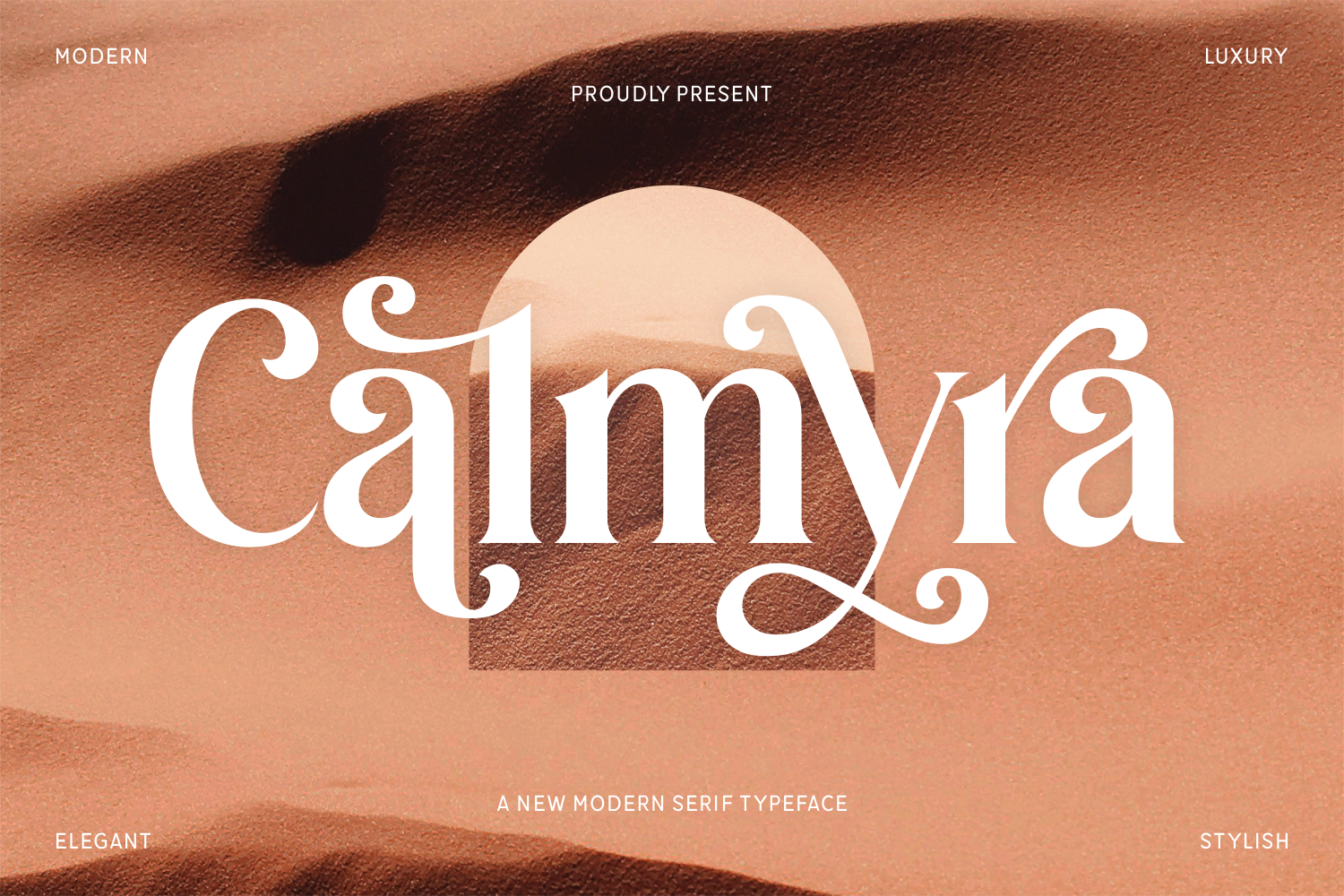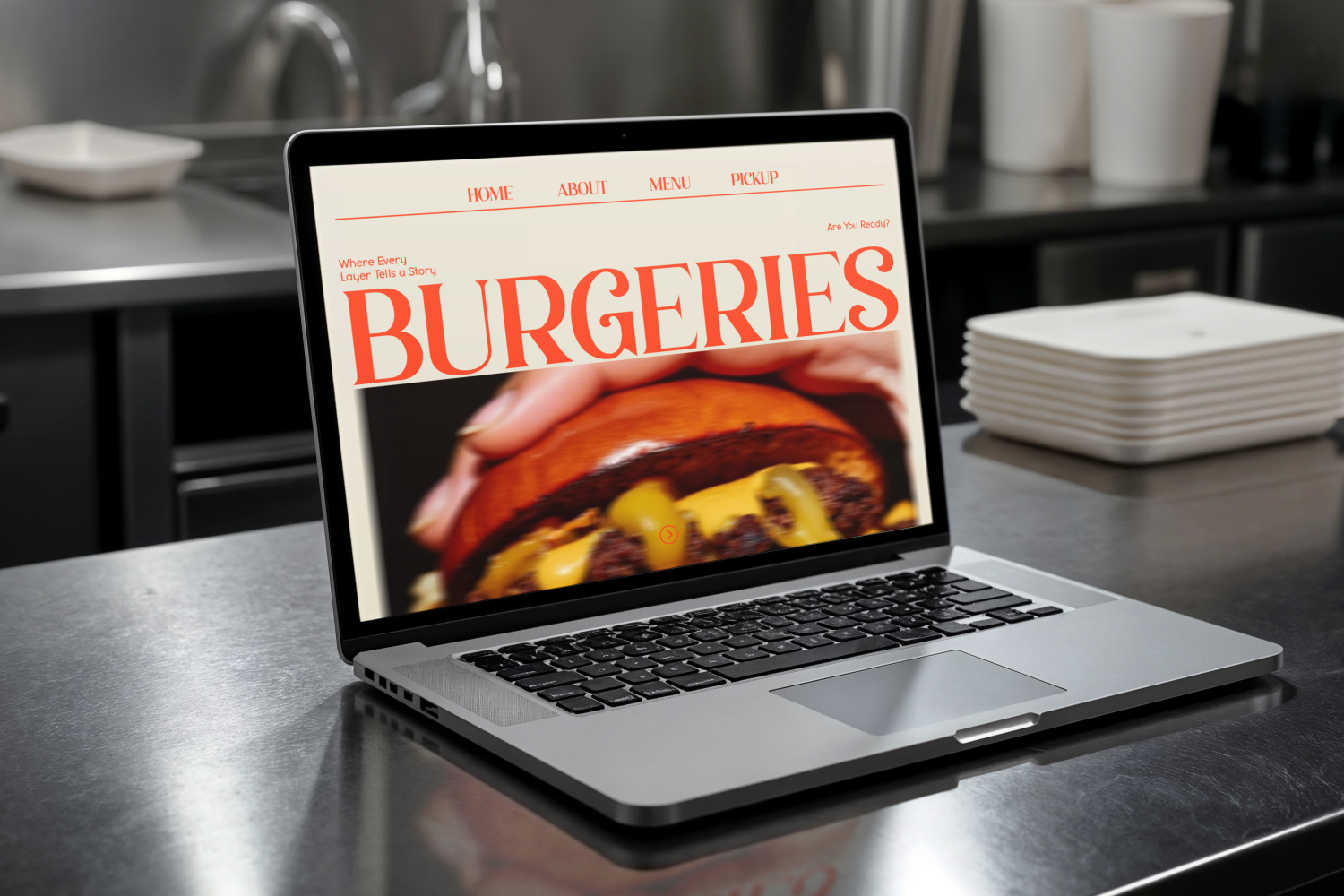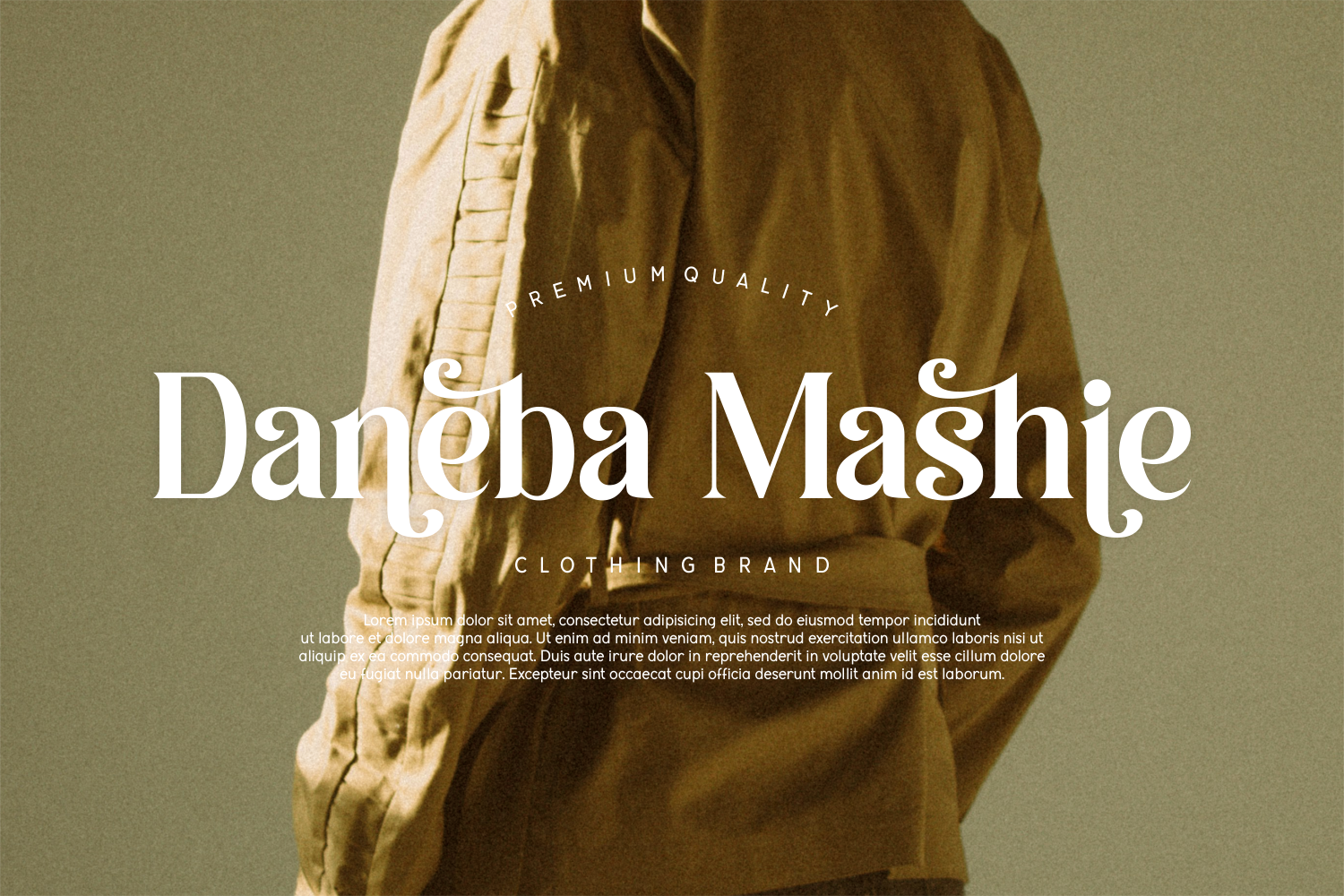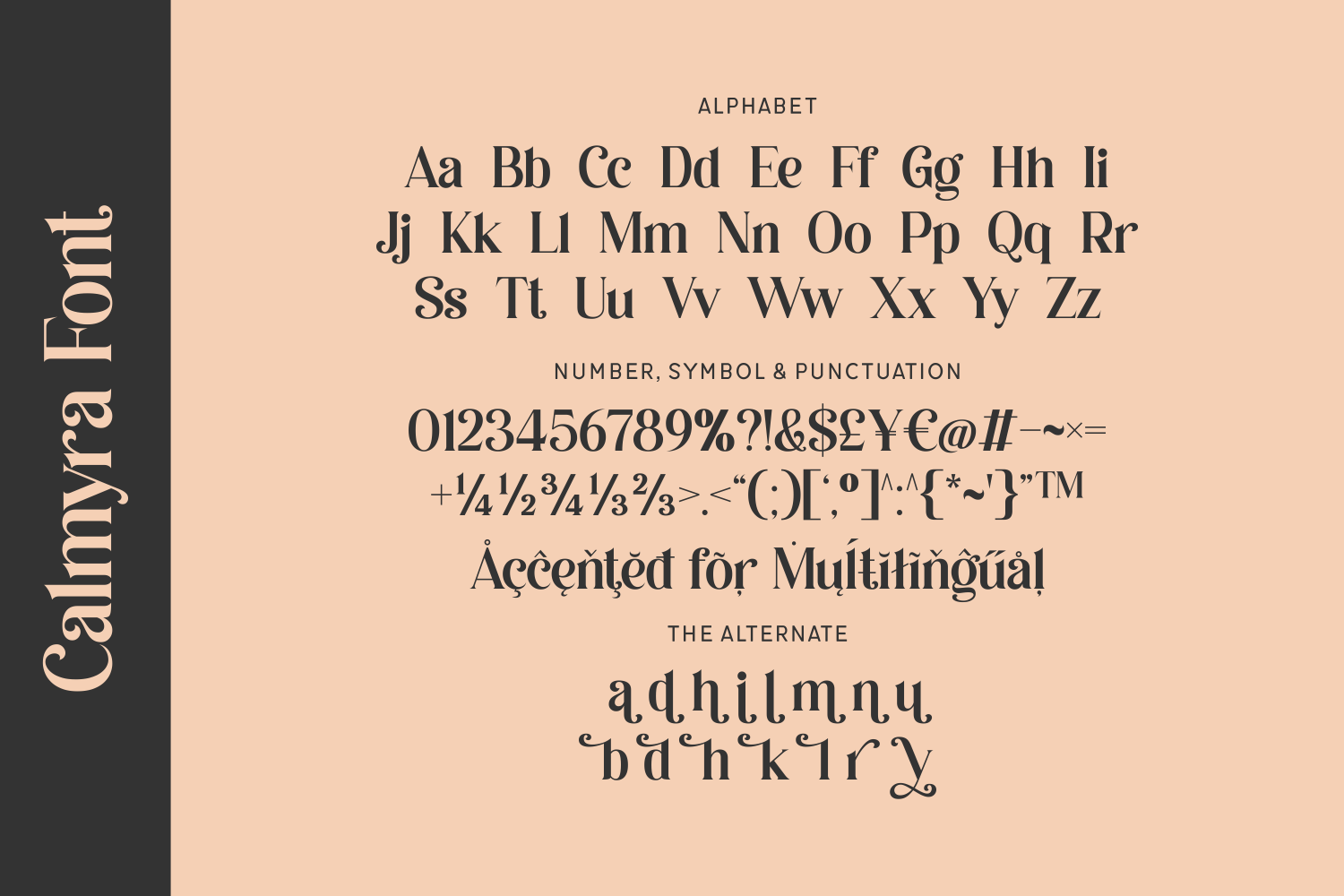
Calmyra is a luxurious modern serif font that radiates grace and sophistication. Featuring elegant curves, stylish swashes, and refined letterforms, Calmyra is perfect for branding, beauty, fashion, and editorial projects.
It captures the serenity of desert landscapes and the high-end appeal of boutique design — ideal for logos, packaging, and invitations that need a touch of calm elegance.